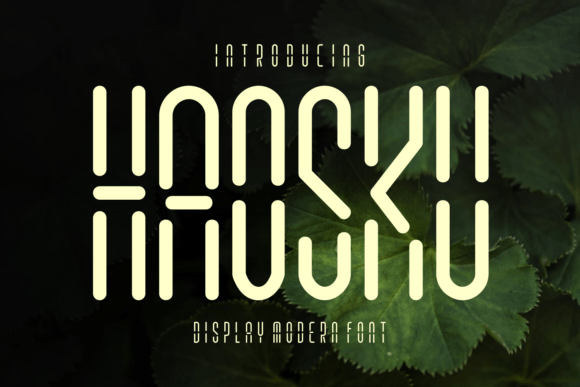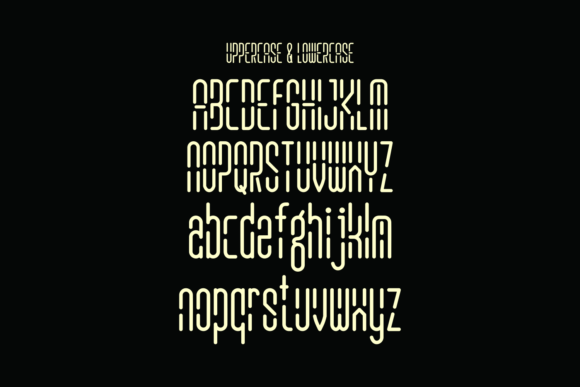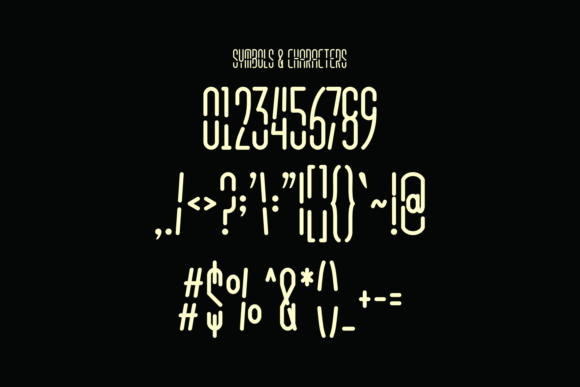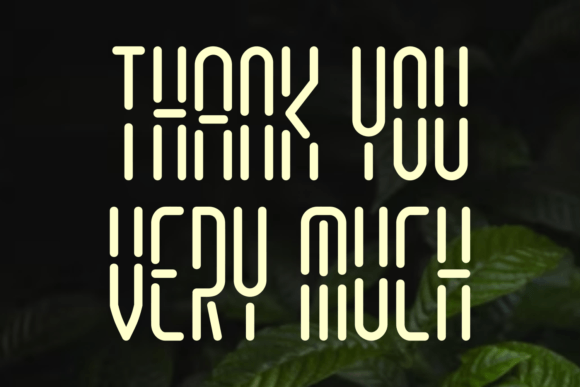
Introducing Haosku Font: Elevate Your Designs with a Cutting-Edge Digital Clock-Inspired Typeface
In the world of typography, fonts play a crucial role in conveying the tone and aesthetic of a design. For designers and crafters looking to add a modern twist to their projects, Haosku Font is an exciting new addition that’s sure to captivate. This unique display font, featuring cut letters reminiscent of digital clock time, brings a sleek and contemporary edge to any design.
The Inspiration Behind Haosku
Haosku’s design draws inspiration from the numeric displays of digital clocks, bringing a sense of precision and modernity to the world of typography. The font’s creator aimed to capture the essence of digital technology and translate it into a visually striking typeface. The result is a font that’s both futuristic and functional, perfect for designers seeking to make a bold statement.
Key Features of Haosku Font
- Unique Cut Letter Design: Haosku’s distinctive cut letter design, inspired by digital clock displays, sets it apart from traditional fonts.
- Sleek and Modern Aesthetic: The font’s sleek lines and contemporary style make it perfect for designs that demand a cutting-edge look.
- Versatility: Haosku is ideal for use in headers, logos, and any display text where a bold, eye-catching font is desired.
- Precision and Clarity: The font’s design ensures excellent readability, even at larger sizes, making it suitable for a wide range of applications.
Haosku Font is a versatile tool for designers and crafters looking to elevate their projects. Whether you’re working on a branding campaign, creating a logo, or designing a website, Haosku can help you achieve a dynamic and futuristic look. Its unique design ensures that your work stands out, making it perfect for projects that require a bit of flair.
How to Use Haosku in Your Designs
Tips for Maximizing Haosku’s Impact
- Pair with Complementary Fonts: Combine Haosku with simpler fonts to create visual contrast and hierarchy in your designs.
- Experiment with Colors: Take advantage of Haosku’s sleek design by using bold, vibrant colors that enhance its modern aesthetic.
- Consider the Context: Ensure that Haosku aligns with the overall tone and theme of your project, as its distinctive style can be quite impactful.
Haosku Font is a game-changer for designers and crafters seeking to infuse their projects with a modern, futuristic vibe. Its unique digital clock-inspired design, combined with its sleek and precise aesthetic, makes it an excellent choice for a wide range of applications. By incorporating Haosku into your design toolkit, you’ll be able to create bold, distinctive, and visually striking designs that capture attention and leave a lasting impression.
Embrace the cutting-edge style of Haosku and discover a new world of typographic possibilities. Whether you’re working on a commercial project or a personal creative endeavor, Haosku Font is sure to inspire and elevate your designs.